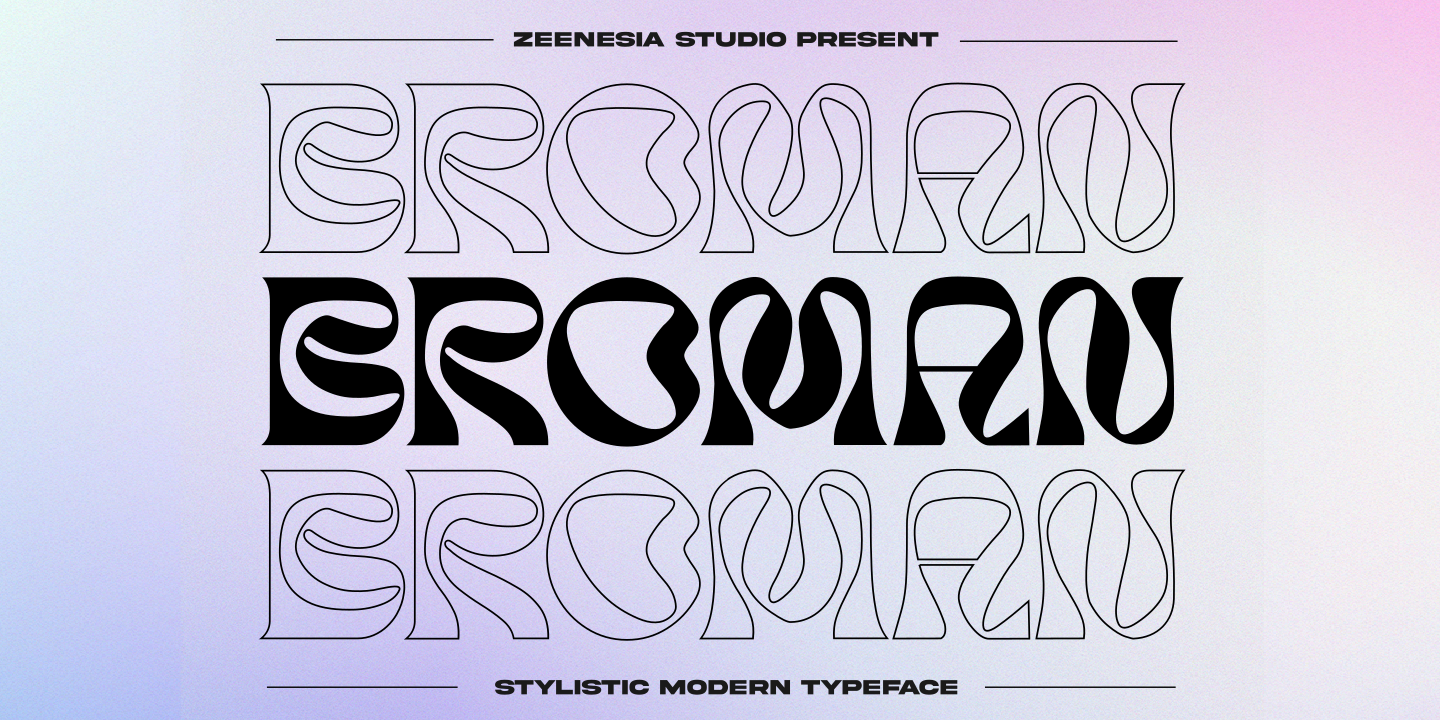
Broman Font Free Download is a bold and modern display typeface perfect for designers seeking a unique, edgy aesthetic. Please note that you must purchase this font for commercial use. You can download it for free for testing purposes. This font excels in applications like editorial projects, logo design, clothing branding, product packaging, and magazine headers, where its serif style with a contemporary twist shines. Its vibrant and experimental design makes it exciting, offering a fun, standout vibe that elevates creative projects. The Broman Font family includes Regular and Bold styles, providing versatile options for dynamic designs.
Transform your projects with Broman Font Free Download, a typeface crafted by Zeenesia Studio to bring a bold, modern edge to your work. Inspired by trending music album artwork, its whimsical yet classic serif structure is ideal for posters, album covers, fashion branding, and social media graphics. Available on platforms like dafont.com and fontspring.com, Broman Font supports multilingual characters and includes PUA-encoded glyphs for easy access to swashes, making it perfect for global and creative applications. Its unique look ensures readability while adding a dose of personality, ideal for both print and digital media. Whether you’re designing a music video title or a lookbook, this font delivers a stylish overlay to any background. Download it today to explore its potential and infuse your designs with a bold, experimental energy that captivates audiences.